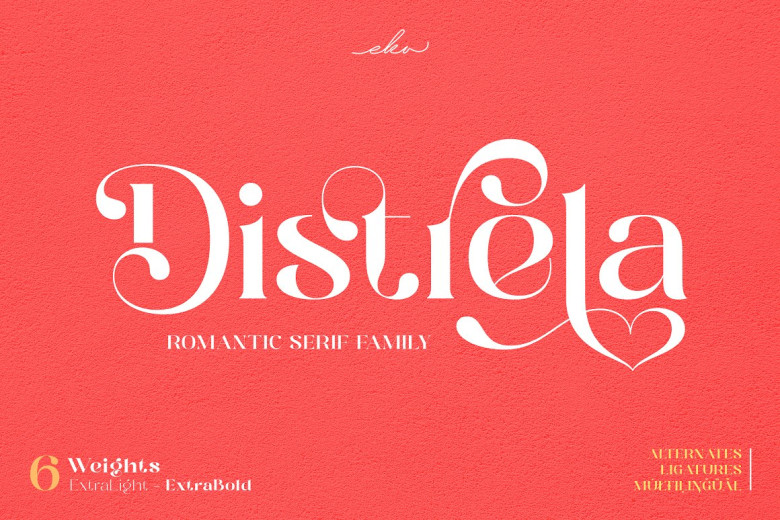
Distrela Font
Distrela – a serif font family with six weights from Extra Light up to Extra Bold – features many alternate characters with romantic themes for use in logo design, wedding invitations, branding posters magazines labels merchandise.
Distrela Romantic Serif Font